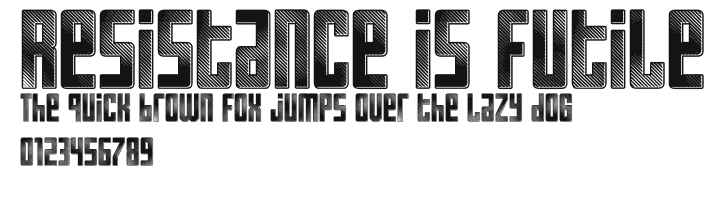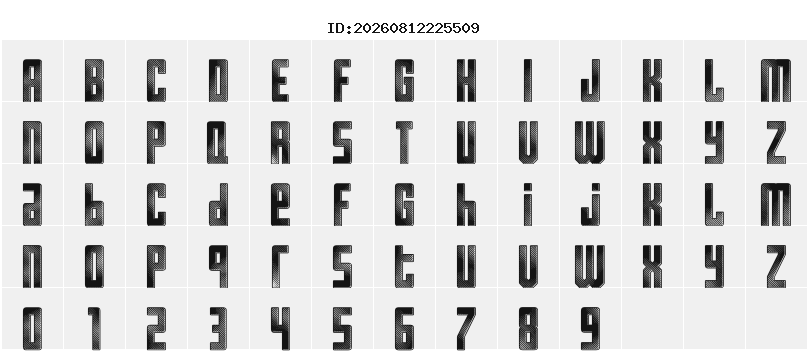
• Font Name: Resistance is Futile
• Full Font Name: Resistance is Futile
• Designer: Imagex
About Resistance is Futile.ttf
Resistance is Futile.ttf is a modern, elegant sans-serif font designed for ultimate readability and visual harmony. Perfect for branding, headlines, web design, and print materials.